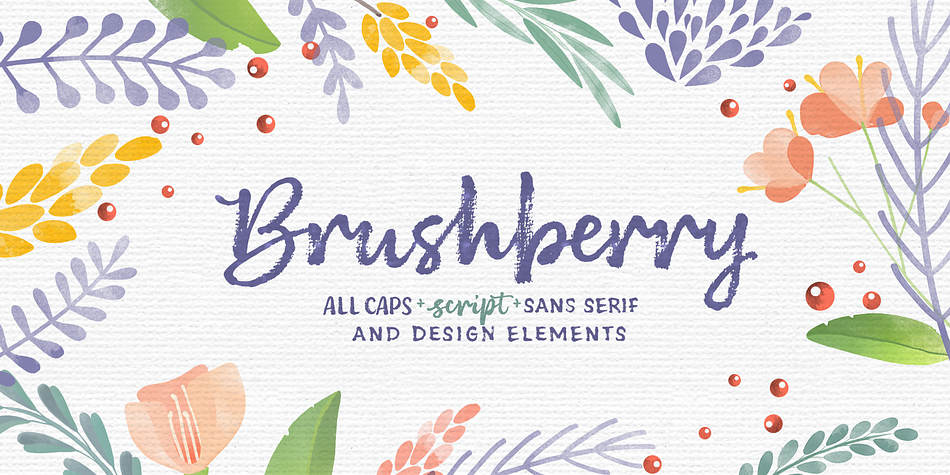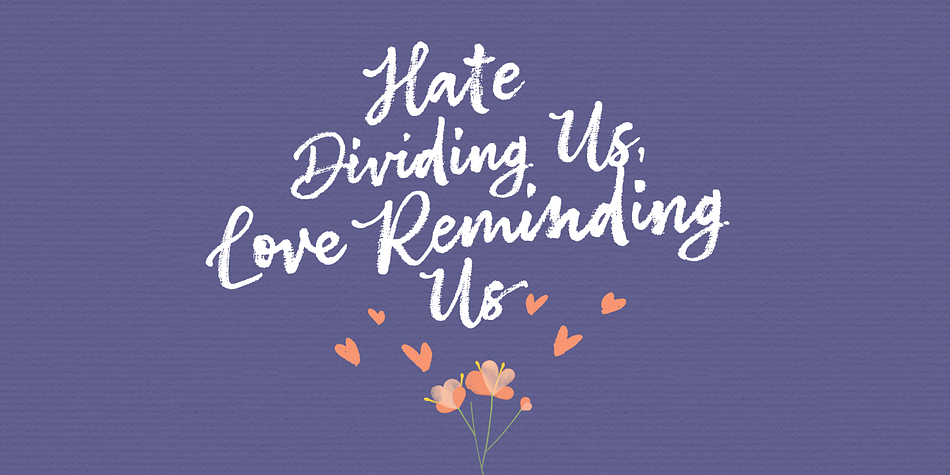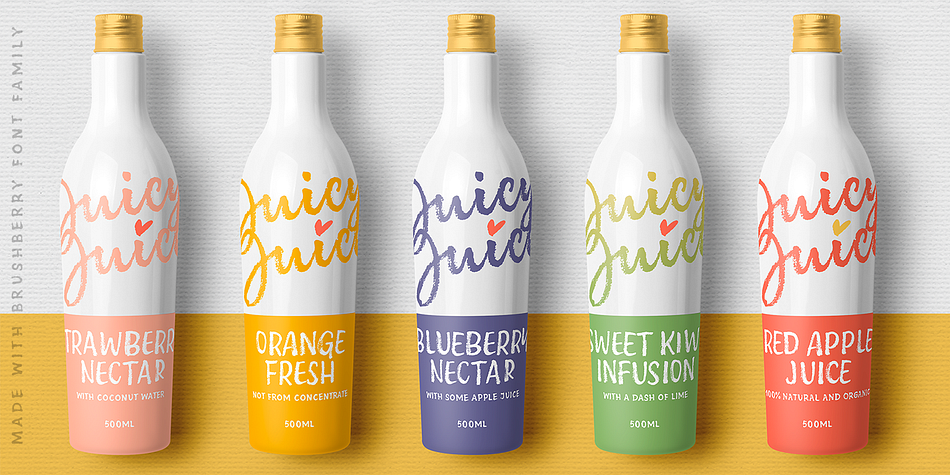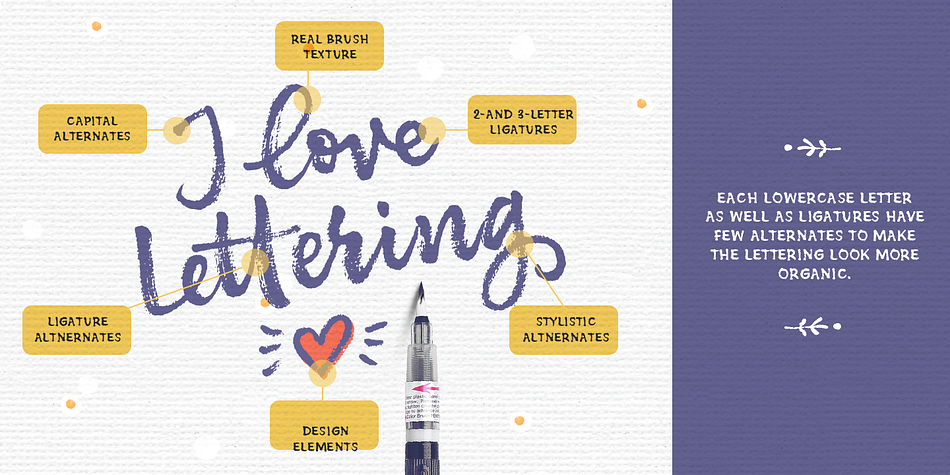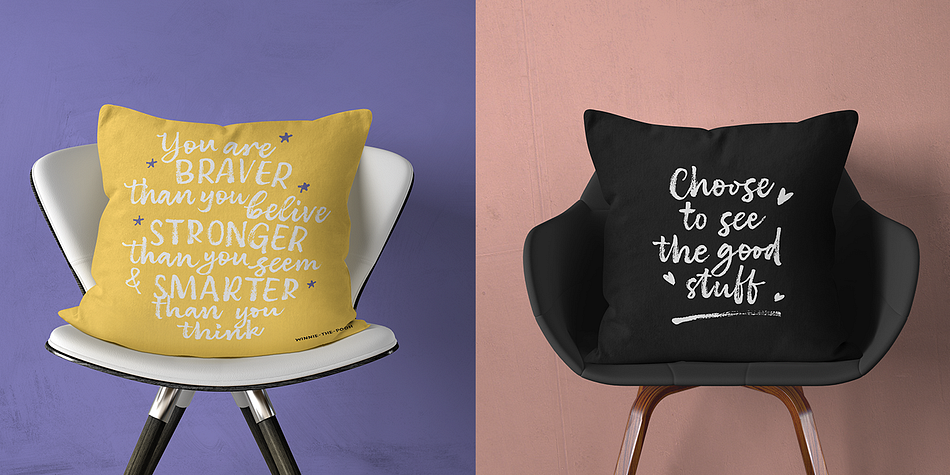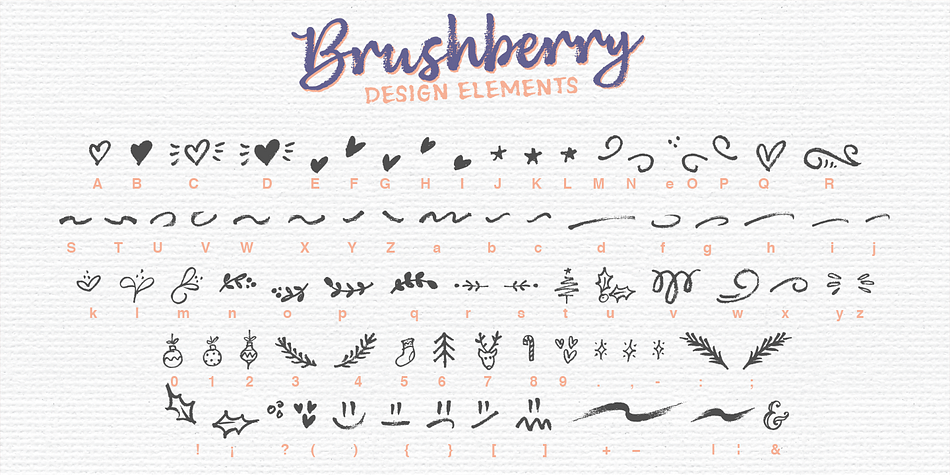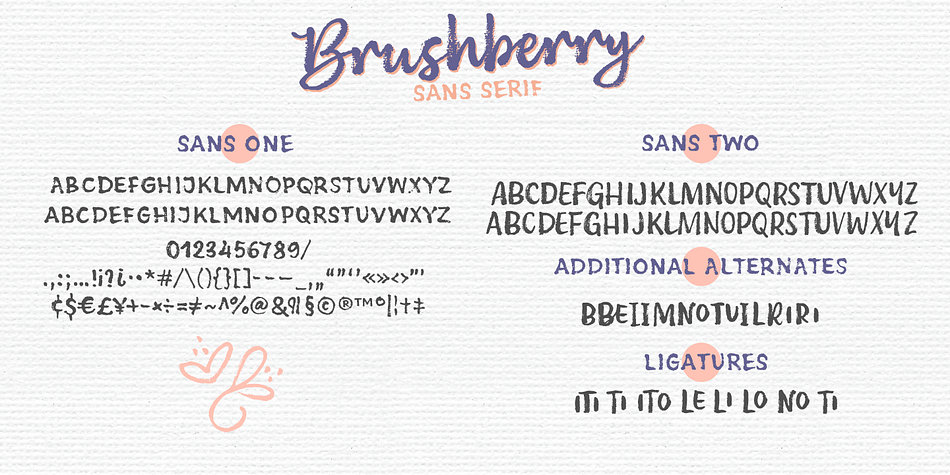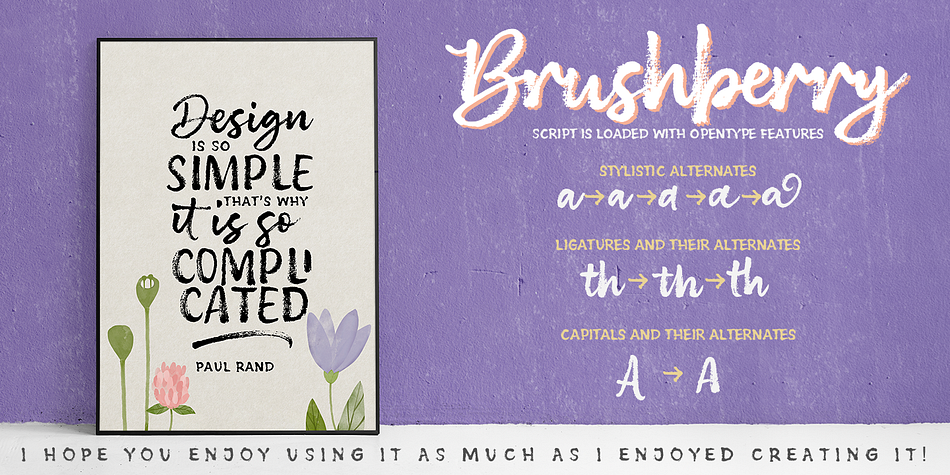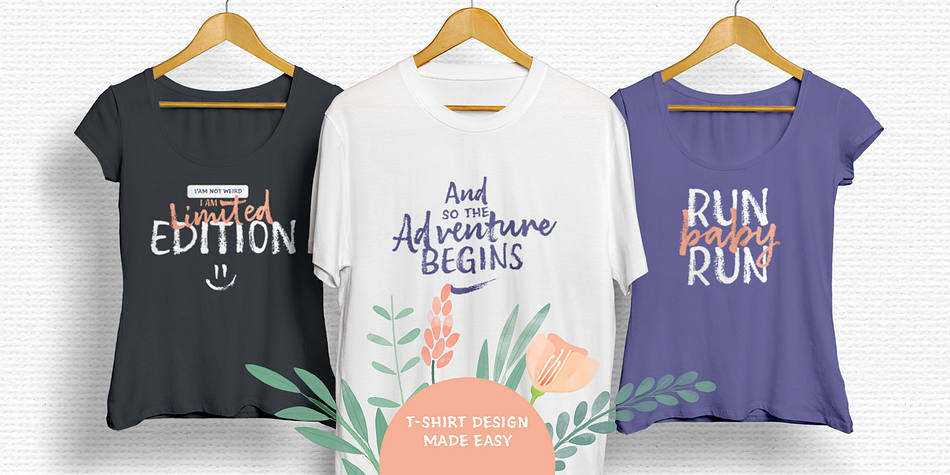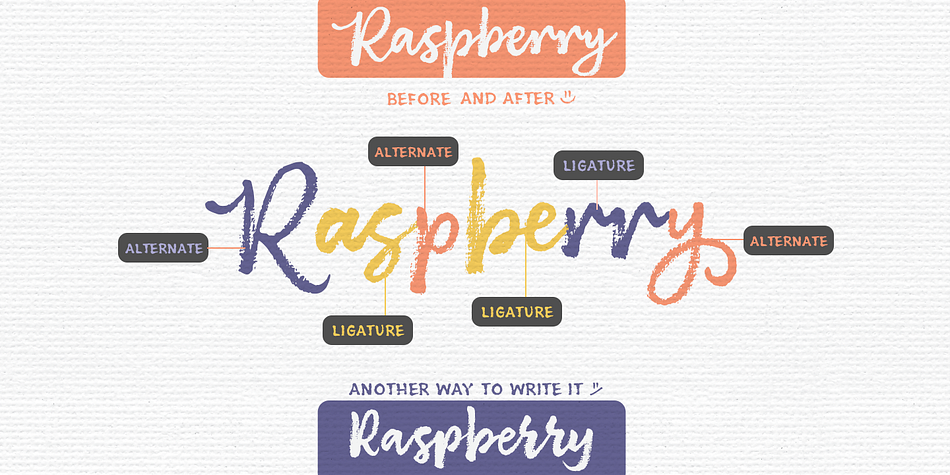
Designed by Elena Genova, Brushberry is a brush display, brush script and dingbat font family. This typeface has four styles and was published by My Creative Land.
Please welcome a new brush written font family of four. Charged with positivity, this playful family is loaded with alternates, ligatures and swirls-n-swashes. It is an ideal companion in creating all sort of greeting cards, t-shirt designs, packaging design, branding etc. Design Elements includes a variety of Christmas and winter holidays related elements (check preview images!). All fonts are fully unicode mapped and you can select the glyphs you need using either your application’s glyphs panel or a standard software that comes with Windows/Mac - CharactersMap/FontBook.